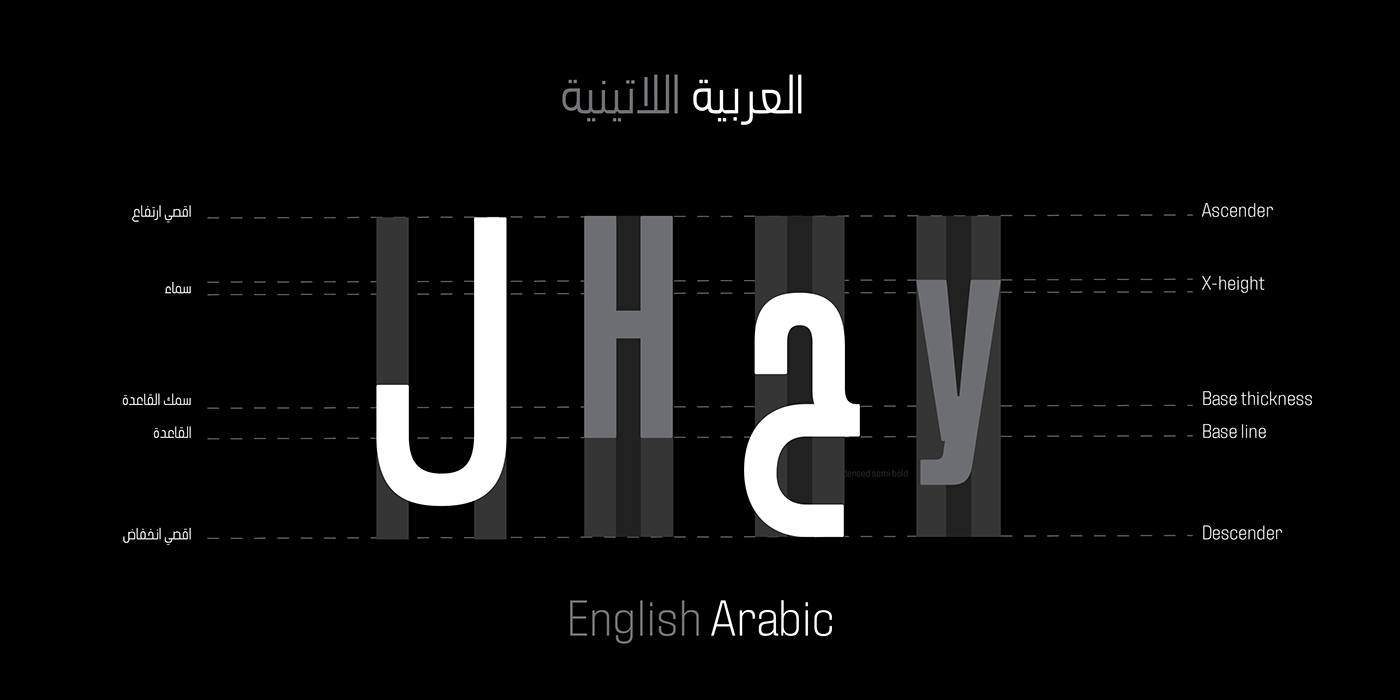
Zawya family has 24 weights, ranging from Thin to Black in Normal, Condensed and Wide styles. It is ideally suited for advertising and packaging, editorial and publishing, logo, branding and creative industries, poster, and billboards, small text, wayfinding, and signage as well as web and screen design.
As well as Latin-based languages, the typeface family also partly supports the Arabic, Urdu and Persian and more than 30 writing systems.
In includes Open-type features for Arabic and English:
Stylistic set 01 and 02, Numerator & Denominator, Fractions, Ordinals, Superscript, Standard Ligatures, Discretionary Ligatures.